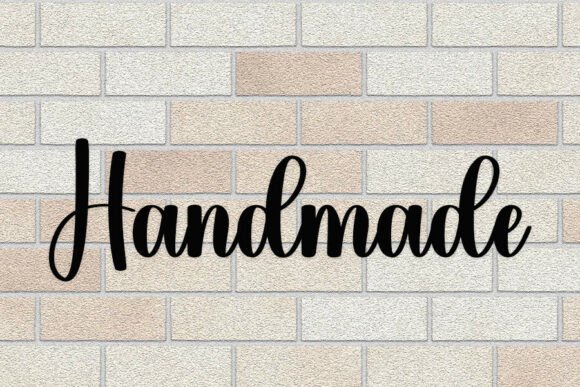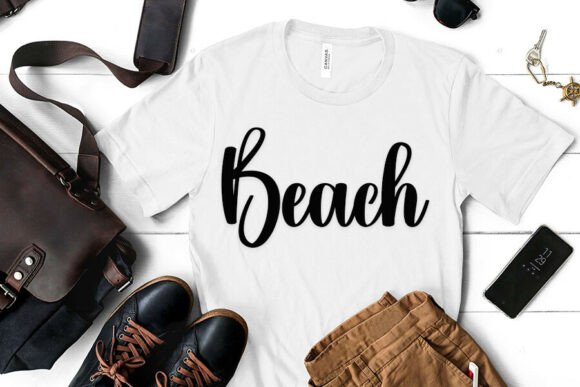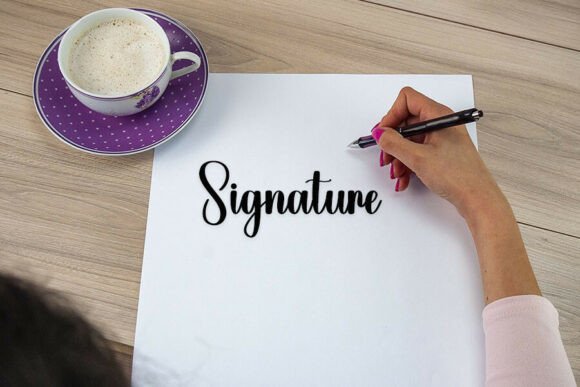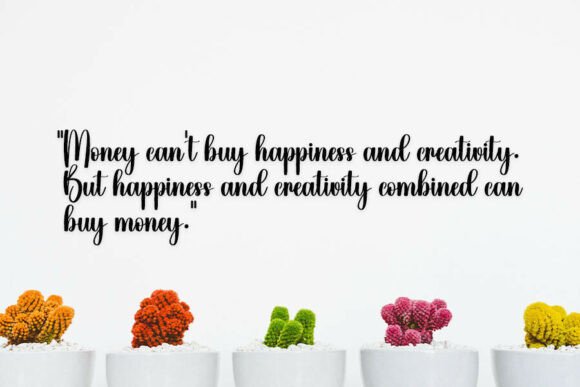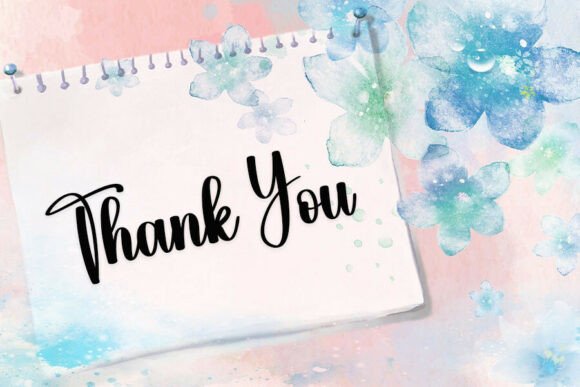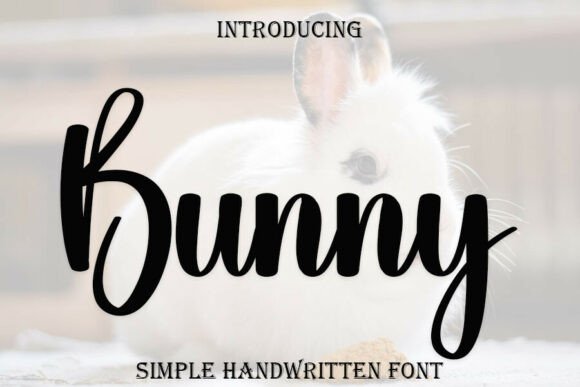
Bunny Font: The Sweet and Cursive Handwritten Font for Your Design Needs
Are you looking for a font that can add a touch of sweetness and romance to your designs? Look no further than the Bunny Font! This gentle, cursive handwritten font is perfect for a variety of design ideas and can instantly elevate your projects to a new level of elegance and sophistication.
What is Bunny Font?
Bunny Font is a beautiful, cursive handwritten font that is designed to bring a sense of joy and romance to your designs. Its gentle and flowing curves make it perfect for creating elegant and sophisticated designs that are sure to capture the attention of your audience.
Features of Bunny Font
- Sweet and Cursive Handwritten Style: Bunny Font features a sweet and cursive handwritten style that is perfect for creating elegant and sophisticated designs.
- Versatile: This font is versatile and can be used on a variety of design ideas, including branding, logos, wedding things, greeting cards, fashion, lookbooks, marketing promotions, and more.
- Easy to Read: Bunny Font is easy to read and understand, making it perfect for body text and headlines.
- Scalable: This font is scalable and can be used on a variety of design materials, from business cards to billboards.
Use Cases for Bunny Font
Bunny Font is perfect for a variety of design projects, including:
- Branding: Use Bunny Font to create elegant and sophisticated brand identities that will help you stand out from the competition.
- Wedding Design: This font is perfect for wedding designs, including wedding invitations, wedding cards, and wedding stationery.
- Greeting Cards: Use Bunny Font to create beautiful and elegant greeting cards for special occasions.
- Fashion: This font is perfect for fashion designs, including lookbooks, fashion magazines, and clothing labels.
- Marketing Promotion: Use Bunny Font to create eye-catching marketing materials, including brochures, flyers, and posters.
Why Choose Bunny Font?
There are many reasons why you should choose Bunny Font for your design needs. Here are just a few:
- Unique and Elegant: Bunny Font is a unique and elegant font that will help you create designs that stand out from the competition.
- High-Quality: This font is high-quality and features smooth and clean lines that will look great on any design material.
Tips for Using Bunny Font
Here are a few tips for using Bunny Font in your designs:
- Use it as a Headline Font: Bunny Font is perfect for use as a headline font, where its elegant and cursive style can really shine.
- Pair it with Other Fonts: This font pairs well with other fonts, including sans-serif fonts and serif fonts.
- Experiment with Colors: Bunny Font looks great in a variety of colors, so don’t be afraid to experiment and find the perfect color for your design.
In conclusion, Bunny Font is a beautiful and elegant cursive handwritten font that is perfect for a variety of design needs. Its sweet and gentle style makes it perfect for creating elegant and sophisticated designs that will capture the attention of your audience. Whether you’re a designer, crafters, or DIY enthusiast, Bunny Font is a great choice for any design project.